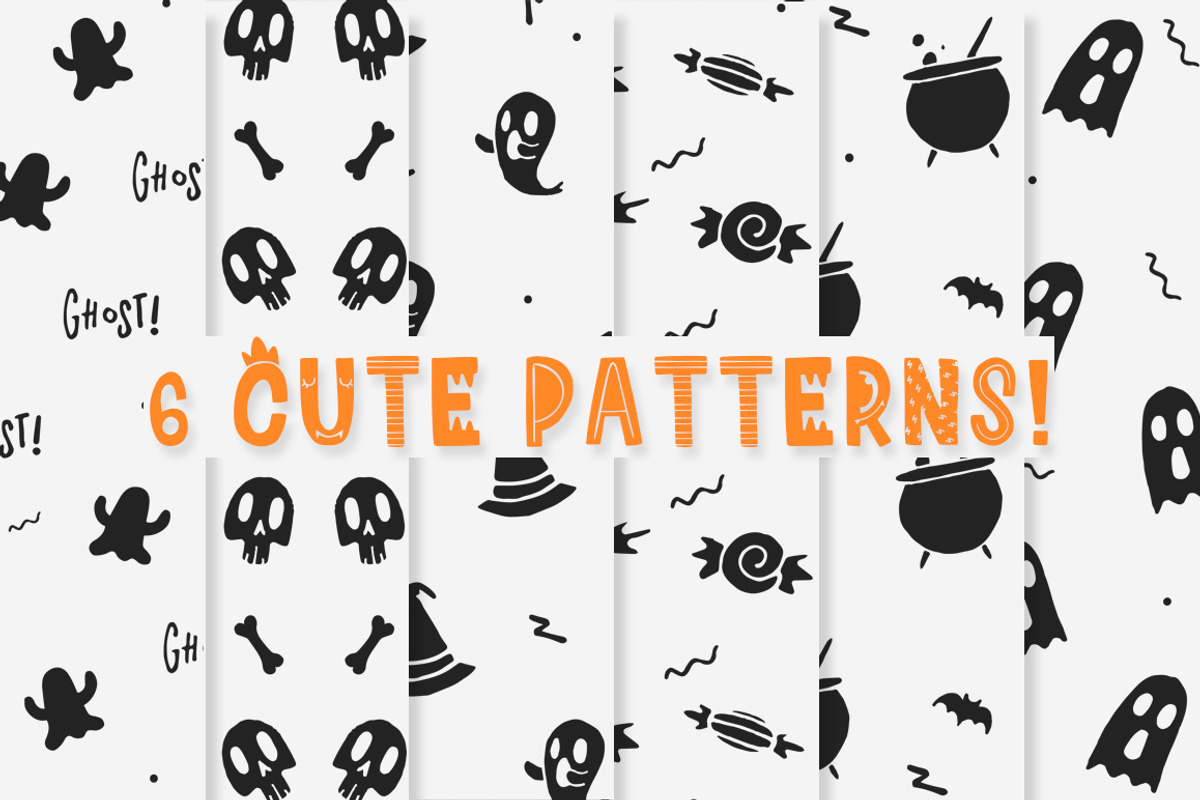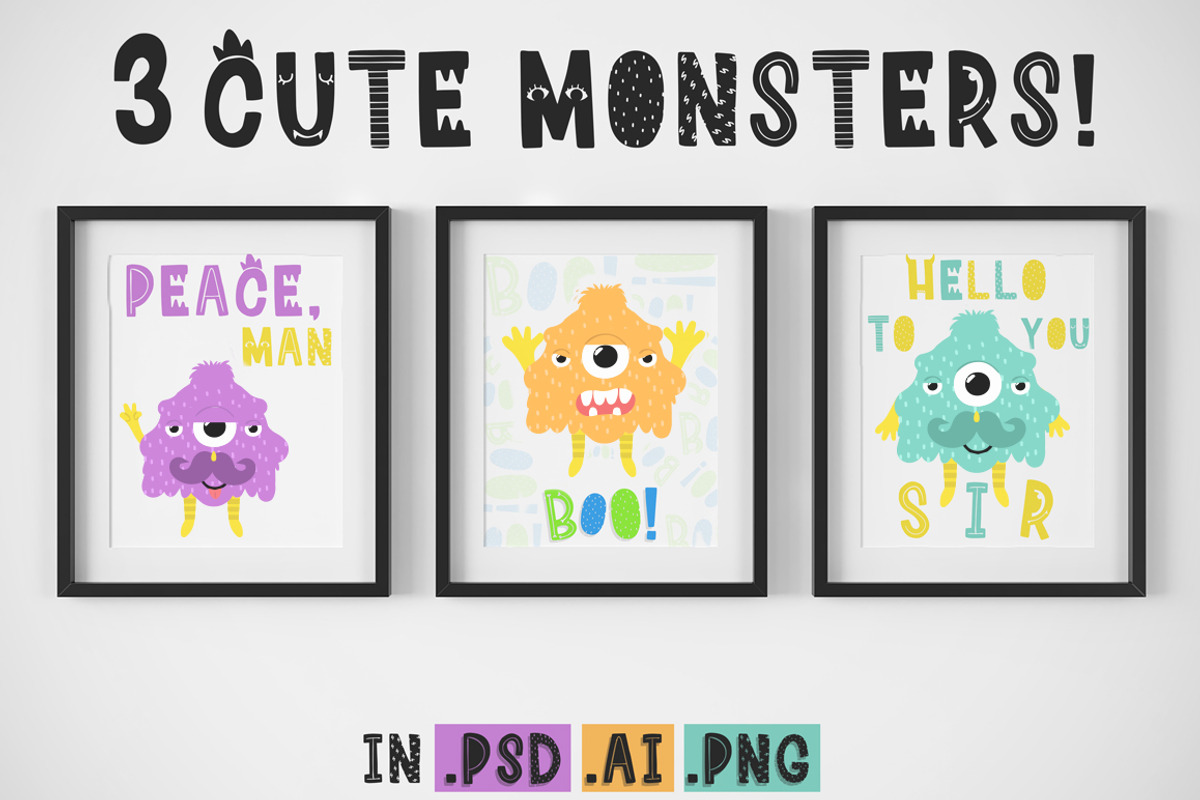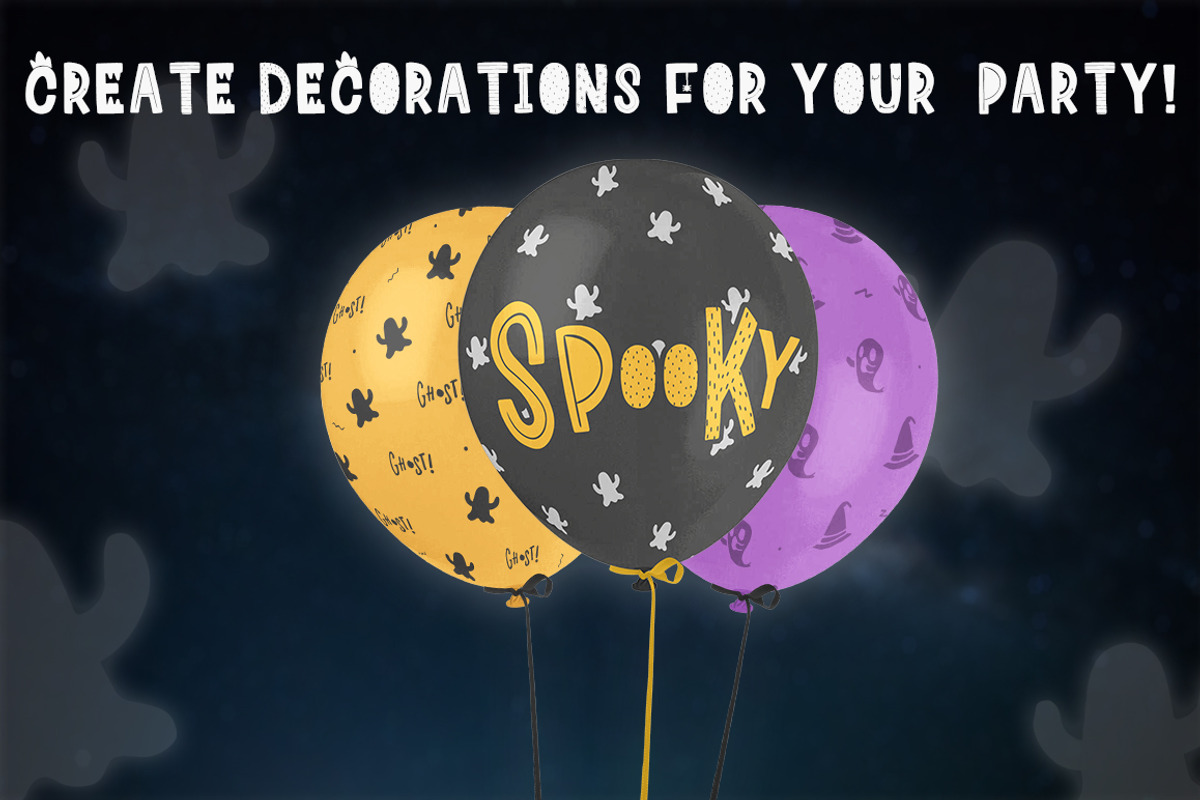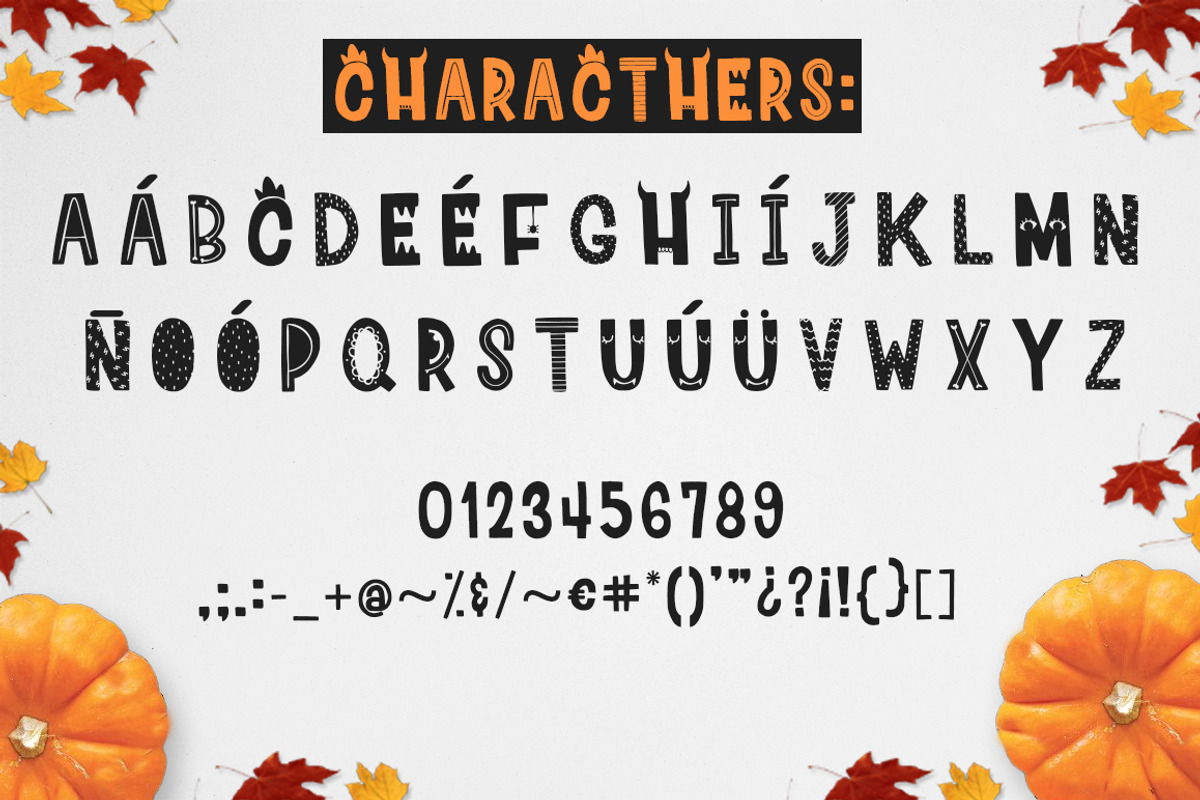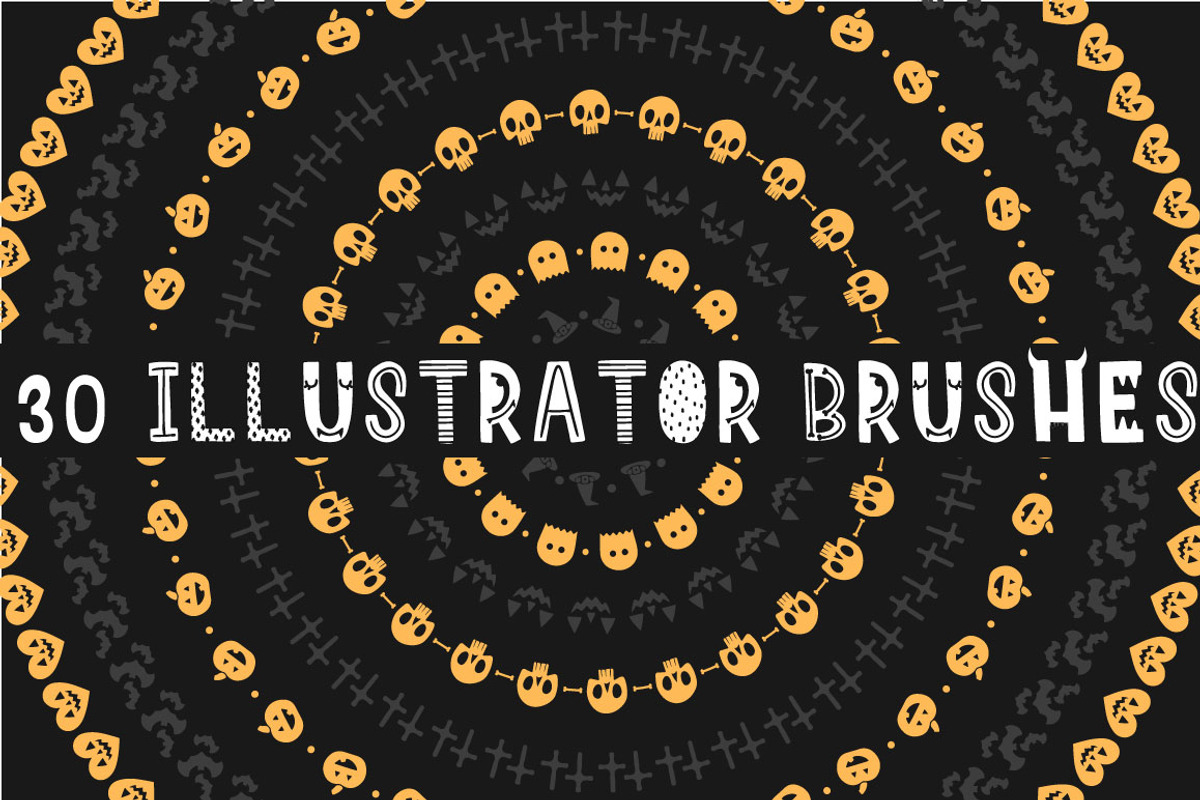
Ha-Halloween font + patterns + MORE!
HA-HALLOWEEN PACK!! FONT + PATTERNS + BRUSHES + ILLUSTRATIONS
October is just around the corner and we all know what that means: Halloween! Yes! The best and most fun holiday of the year is coming and that's why I present to you this awesome design kit with all the thins you'll need to create some spooky and beautiful designs :) It got a font, brushes, patterns and illustrations!
Perfect for creating invitations, merchandise, decor, flyers, and more!
The font got multilingual characters
Just the thing we need to get our halloween mood on!